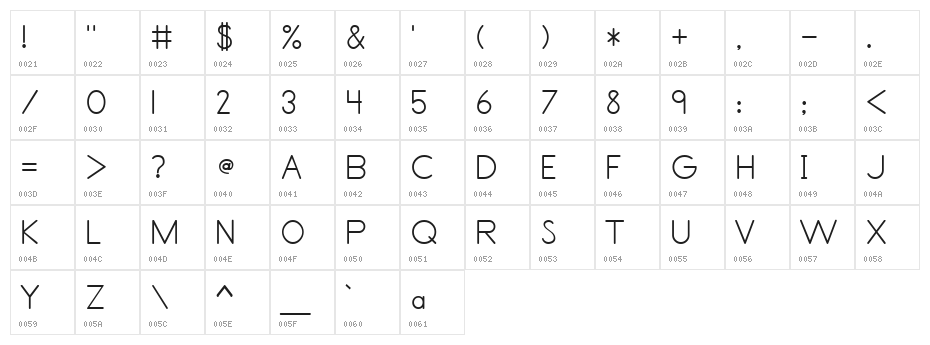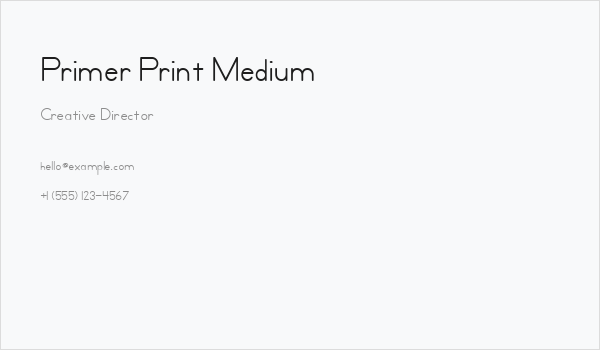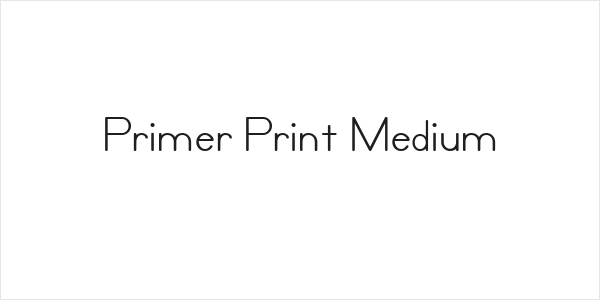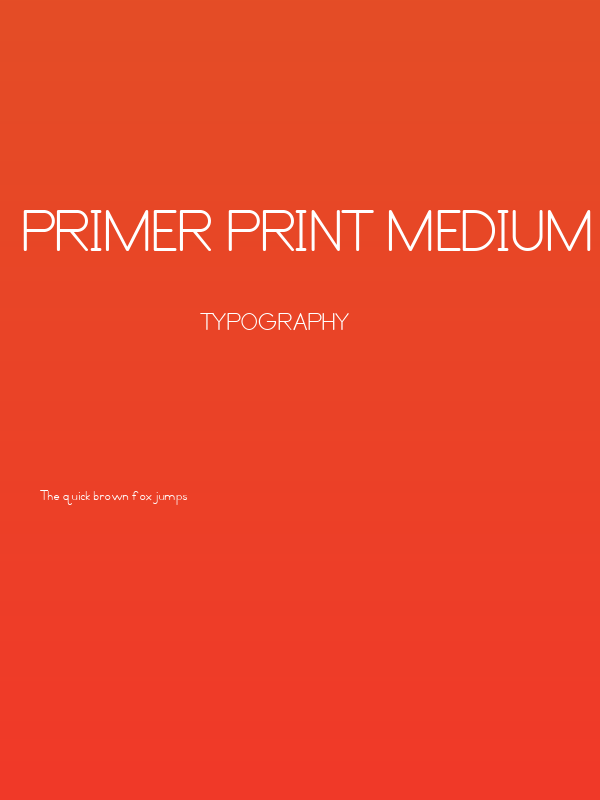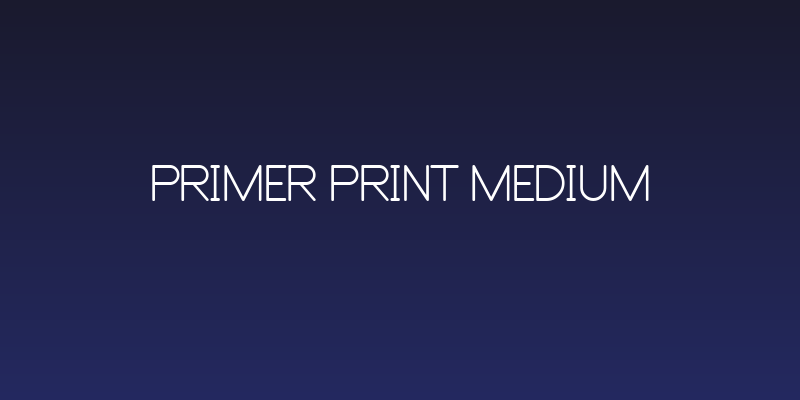
Primer Print Medium Font
Primer Print Medium Description
This font features a clean and geometric design with rounded edges, giving it a friendly and approachable appearance. The uppercase letters are uniform in height, while the lowercase letters maintain a consistent baseline, enhancing readability. The numerals are distinct and clear, making them suitable for various applications. The special characters are well-integrated, maintaining the overall aesthetic of the font. Its simplicity and clarity make it versatile for both digital and print media.
Proposed ProjectsIdeal for educational materials, children's books, user interfaces, and branding projects that require a friendly and modern look.